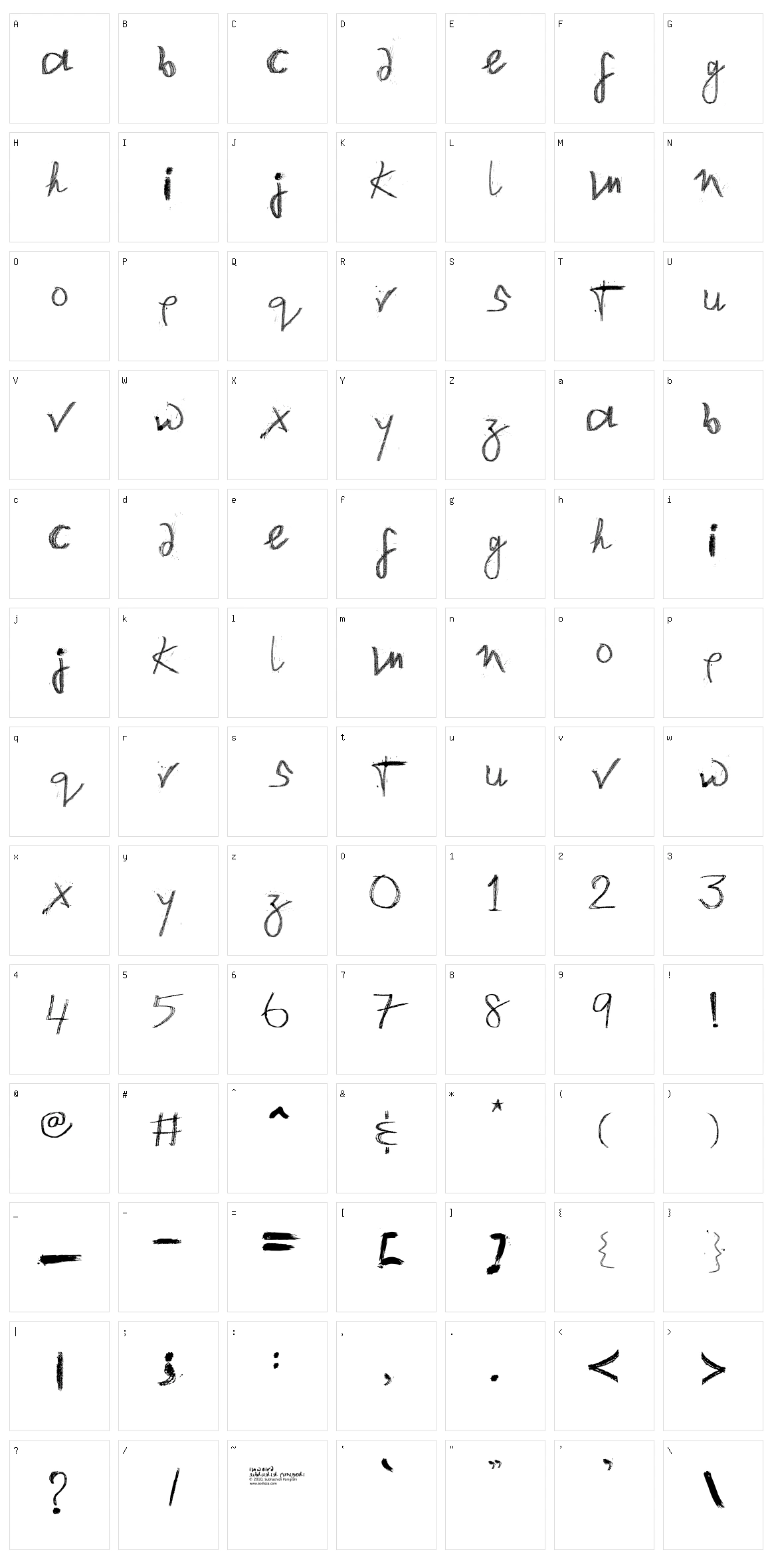
The free font I'm Weird is carefully designed by Subhashish Panigrahi, showcasing a thoughtful balance of creativity and usability and falls under the Trash font style. When you download the ZIP file, it contains only 373.02 KB of font files, making it lightweight and quick to download. Please review the license details below to understand permitted usage and distribution rights. If license information is not available, we recommend using this font for personal projects only or contacting the author directly for commercial usage permissions.